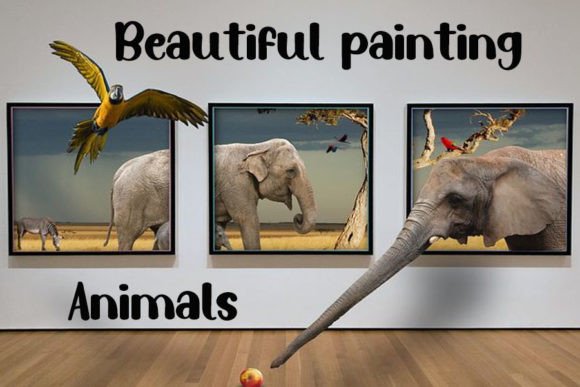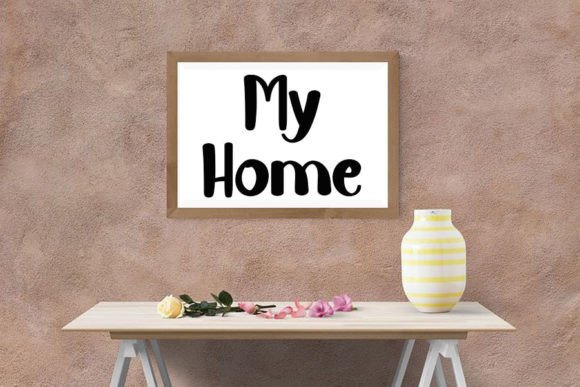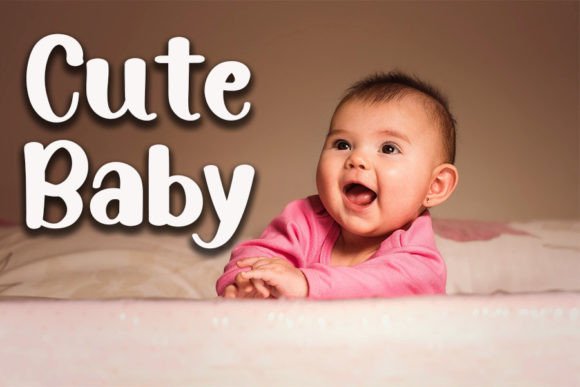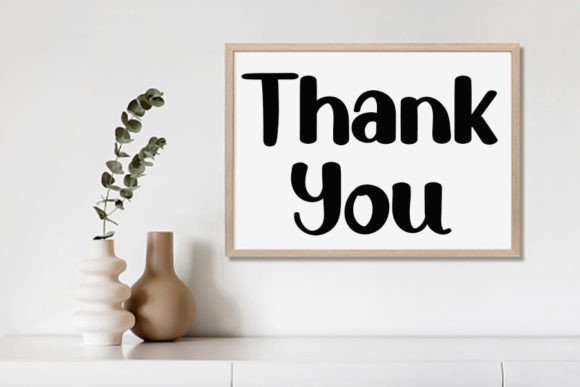
Daddy Font: The Magical Handwritten Font for Elegant and Quirky Designs
Are you a designer or crafter looking for a unique and versatile font to elevate your creative projects? Look no further than Daddy Font, a magical handwritten font that combines elegance and quirkiness. In this article, we’ll dive into the world of Daddy Font and explore its features, benefits, and uses.
What is Daddy Font?
Daddy Font is a carefully crafted handwritten font that exudes elegance and sophistication. With its clean lines and subtle quirks, this font is perfect for designers and crafters who want to add a touch of personality to their work. Whether you’re creating logos, branding materials, social media graphics, or DIY projects, Daddy Font is the ideal choice.
Key Features of Daddy Font
- Handwritten with love: Daddy Font is a genuine handwritten font, created with love and care to ensure that every letter and curve is unique and authentic.
- Elegant and quirky: This font combines elegance and quirkiness, making it perfect for designers and crafters who want to create visually appealing and engaging designs.
- Clean and legible: Despite its quirky nature, Daddy Font is clean and legible, ensuring that your message is conveyed clearly and effectively.
- Versatile: Daddy Font can be used for a wide range of projects, from logos and branding to social media graphics and DIY crafts.
Benefits of Using Daddy Font
So, why choose Daddy Font for your design projects? Here are just a few benefits of using this magical handwritten font:
- Stand out from the crowd: With its unique blend of elegance and quirkiness, Daddy Font helps you create designs that stand out from the crowd and grab attention.
- Add personality to your designs: This font allows you to add a touch of personality to your designs, making them more engaging and relatable.
- Save time and effort: Daddy Font is easy to use and works seamlessly with popular design software, saving you time and effort.
- Perfect for crafty DIY projects: Whether you’re creating handmade cards, scrapbook pages, or other DIY crafts, Daddy Font is the perfect choice.
Uses of Daddy Font
Daddy Font is a versatile font that can be used for a wide range of projects, including:
- Logos and branding: Create unique and memorable logos and branding materials that reflect your brand’s personality.
- Social media graphics: Use Daddy Font to create engaging social media graphics that stand out in crowded feeds.
- DIY crafts: Add a touch of elegance and quirkiness to your handmade cards, scrapbook pages, and other DIY crafts.
- Stationery and packaging: Use Daddy Font to create beautiful stationery and packaging that reflects your brand’s personality.
In conclusion, Daddy Font is a magical handwritten font that combines elegance and quirkiness, making it perfect for designers and crafters who want to create visually appealing and engaging designs. With its clean lines, subtle quirks, and versatility, this font is ideal for a wide range of projects, from logos and branding to social media graphics and DIY crafts. So why wait? Try Daddy Font today and take your designs to the next level!